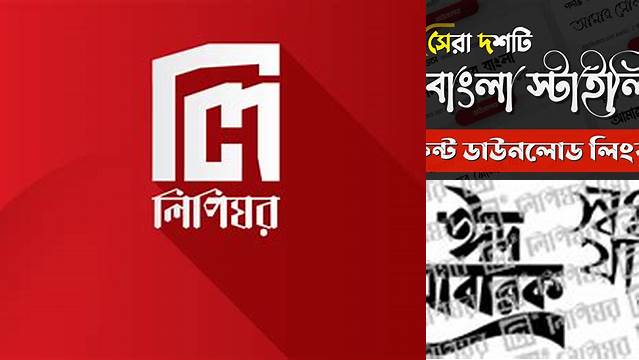
Lipighor Free Bangla Font: Your Ultimate Guide
Bangla fonts are essential for anyone working with the Bengali language, whether it's for digital content, print media, or web design. Among the plethora of Bangla fonts available, Lipighor stands out as a popular and versatile choice. In this comprehensive guide, we'll delve into the world of Lipighor free Bangla font, exploring its features, benefits, and how you can utilize it effectively in your projects. Guys, if you're looking to enhance your Bangla typography, you've come to the right place! Let's dive deep into what makes Lipighor a fantastic option for your needs. We will explore its historical context, design characteristics, and practical applications. Additionally, we'll guide you through the process of downloading and installing this font, ensuring you can start using it right away. We'll also touch on some common issues users face and how to troubleshoot them, making this a complete resource for everything Lipighor. Ultimately, our goal is to provide you with all the necessary information to confidently use Lipighor in your various projects, whether they're for personal, educational, or professional purposes. So, stick around and let's get started!
What is Lipighor Font?
At its core, Lipighor is a free Bangla font known for its clean, contemporary design and excellent readability. It's designed to cater to a wide range of applications, from body text in documents and websites to headlines and display purposes. The font is crafted with meticulous attention to detail, ensuring each character is legible and aesthetically pleasing. The elegance and clarity of Lipighor make it a go-to choice for many designers and content creators. Lipighor's versatility stems from its design that balances traditional Bangla script aesthetics with modern typography principles. This makes it suitable for both formal and informal contexts. Whether you are creating a professional report, designing a website, or crafting social media content, Lipighor can adapt to your needs. The font's crisp lines and well-defined characters ensure that your message is conveyed clearly and effectively. Furthermore, Lipighor's commitment to being a free Bangla font makes it accessible to a broad audience. This is particularly beneficial for students, educators, and small businesses who may have budget constraints but still require high-quality typography for their projects. The availability of Lipighor as a free resource promotes the use of Bangla in various digital and print media, contributing to the language's continued growth and relevance in the modern world. So, let's continue exploring why Lipighor is such a valuable asset for Bangla typography.
Key Features of Lipighor Font
When we talk about Lipighor, it’s essential to highlight its standout features. One of the most significant is its legibility. The font is designed to be easily readable, even at smaller sizes, making it perfect for body text. Another key feature is its versatility. Lipighor works well in various contexts, be it formal documents, website content, or creative designs. The font also boasts a modern aesthetic, blending traditional Bangla letterforms with contemporary design principles. This ensures that your text looks both authentic and up-to-date. Additionally, Lipighor supports a wide range of characters and glyphs, including all the necessary Bangla characters and punctuation marks. This comprehensive character set ensures that you can write anything in Bangla without worrying about missing symbols or characters. The font also includes various ligatures and conjuncts, which are essential for proper Bangla typography. Ligatures are special characters that combine two or more letters into a single glyph, enhancing the aesthetic appeal and readability of the text. Conjuncts, on the other hand, are combinations of consonants that form a single phonetic unit. Lipighor's inclusion of these features demonstrates its commitment to linguistic accuracy and visual excellence. Moreover, Lipighor's design team has focused on ensuring that the font renders well across different platforms and devices. This cross-platform compatibility is crucial in today's digital landscape, where content is consumed on a variety of screens, from smartphones and tablets to laptops and desktop computers. So, these features collectively make Lipighor a robust and reliable option for all your Bangla typography needs.
Why Choose Lipighor Free Bangla Font?
In conclusion, Lipighor free Bangla font is a fantastic resource for anyone working with the Bengali language. Its combination of readability, versatility, and modern design makes it a top choice for a wide range of applications. Whether you’re designing a website, creating print materials, or crafting digital documents, Lipighor can help you achieve a professional and polished look. The fact that it’s free makes it even more appealing, opening up high-quality Bangla typography to everyone. The ease of download and installation, coupled with its robust features, ensures that you can start using Lipighor quickly and efficiently. From its comprehensive character set to its cross-platform compatibility, Lipighor is designed to meet the diverse needs of users. The troubleshooting tips provided can help you overcome any installation issues, ensuring a smooth experience. Moreover, the ongoing support and updates from the font's creators demonstrate a commitment to quality and user satisfaction. By choosing Lipighor, you're not just selecting a font; you're joining a community that values excellence in Bangla typography. So, go ahead and download Lipighor today, and elevate your Bangla content to the next level. We hope this guide has provided you with all the information you need to make the most of this wonderful font. Happy designing, guys! Remember, the key to effective communication is not just what you say, but how you say it, and Lipighor is here to help you say it beautifully in Bangla.